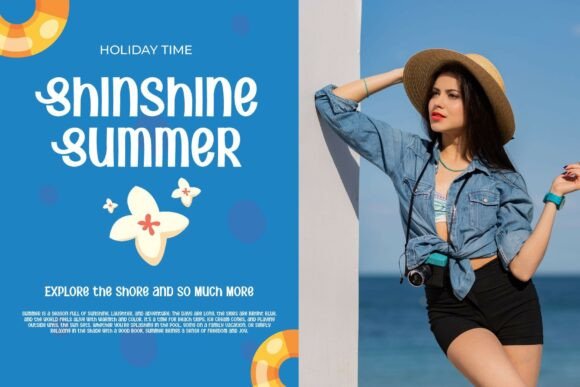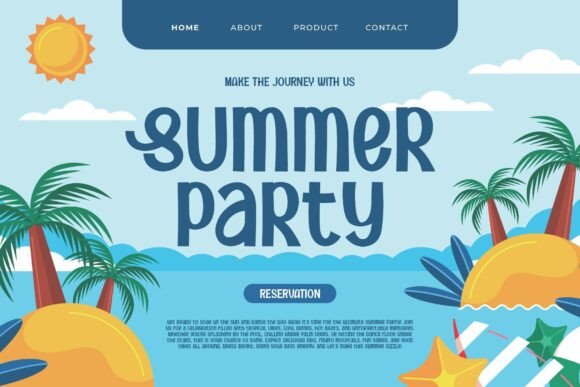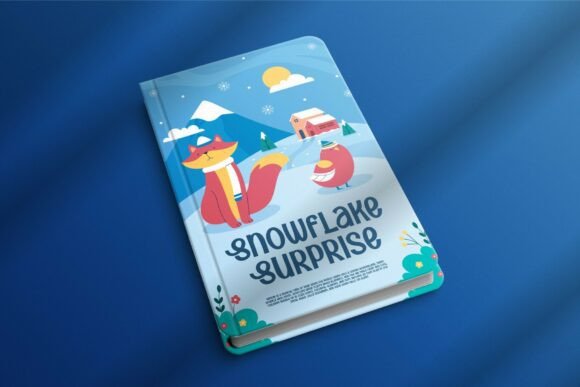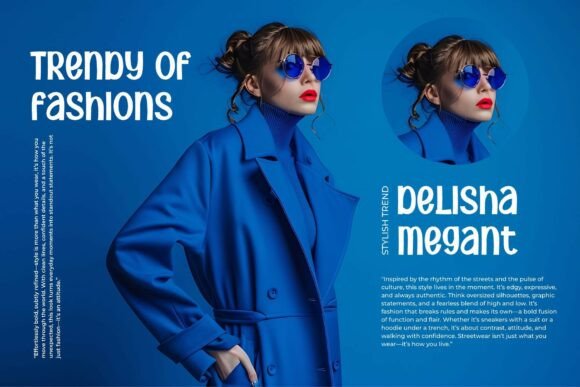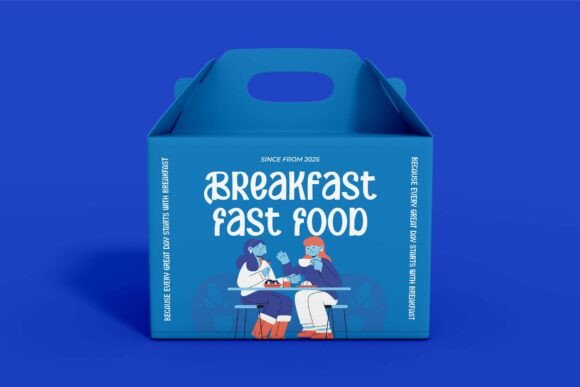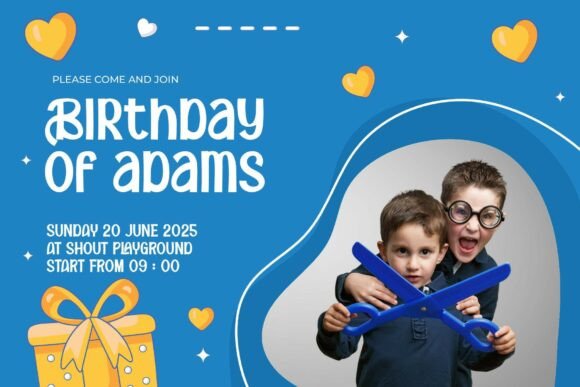
Awash Shines Font: The Perfect Summer Display Font for Your Creative Projects
Are you looking for a font that captures the essence of summer and adds a playful touch to your designs? Look no further than Awash Shines Font! This cheerful and bold summer display font is perfect for beach themes, playful graphics, or seasonal product packaging. Its hand-drawn feel and friendly curves give off warmth, fun, and casual charm, making it an excellent choice for designers and crafters alike.
What Makes Awash Shines Font So Special?
Awash Shines Font is a unique and eye-catching font that stands out from the crowd. Its bold and cheerful design makes it perfect for headlines, titles, and short phrases, while its friendly curves and hand-drawn feel add a touch of warmth and personality to any design. Whether you’re creating a beach-themed poster, a playful graphic, or a seasonal product package, Awash Shines Font is sure to make your design shine.
Perfect for Beach Themes and Summer Designs
Awash Shines Font is specifically designed with summer and beach themes in mind. Its lighthearted and carefree design captures the essence of the season, making it perfect for designs that require a playful and fun touch. From beach-themed posters and flyers to summer-themed product packaging and graphics, Awash Shines Font is the perfect choice for any design project that requires a cheerful and upbeat vibe.
Hand-Drawn Feel and Friendly Curves
One of the standout features of Awash Shines Font is its hand-drawn feel and friendly curves. The font’s unique design gives it a personal and approachable feel, making it perfect for designs that require a touch of warmth and personality. The friendly curves and rounded edges of the font also make it easy to read and visually appealing, making it an excellent choice for designs that require a clear and concise message.
Use Awash Shines Font for a Variety of Design Projects
Awash Shines Font is a versatile font that can be used for a wide range of design projects, including:
• Beach-themed posters and flyers
• Summer-themed product packaging and graphics
• Playful and fun designs for kids’ products and marketing materials
• Seasonal and holiday-themed designs
Why Choose Awash Shines Font?
There are many reasons why Awash Shines Font is an excellent choice for designers and crafters. Here are just a few:
• Unique and eye-catching design: Awash Shines Font stands out from the crowd with its bold and cheerful design.
• Hand-drawn feel and friendly curves: The font’s unique design gives it a personal and approachable feel.
• Perfect for summer and beach themes: Awash Shines Font is specifically designed with summer and beach themes in mind.
• Versatile and easy to use: The font can be used for a wide range of design projects and is easy to read and visually appealing.
Awash Shines Font is a cheerful and bold summer display font that’s perfect for adding a playful touch to your designs. Its hand-drawn feel and friendly curves give off warmth, fun, and casual charm, making it an excellent choice for designers and crafters alike. Whether you’re creating a beach-themed poster, a playful graphic, or a seasonal product package, Awash Shines Font is sure to make your design shine. So why not give it a try and see the difference it can make in your designs?